Preppy fonts bring a refreshing and stylish flair to any design project. These fonts feature clean lines and a sophisticated look. Their timeless elegance adds a touch of charm to any design. When you create a logo, a preppy font can elevate the design. It also enhances social media graphics. If you’re preparing a greeting card, a preppy font adds charm and sophistication to the overall aesthetic.
Let’s dive into what makes preppy fonts stand out and how they can add sophistication to your designs.
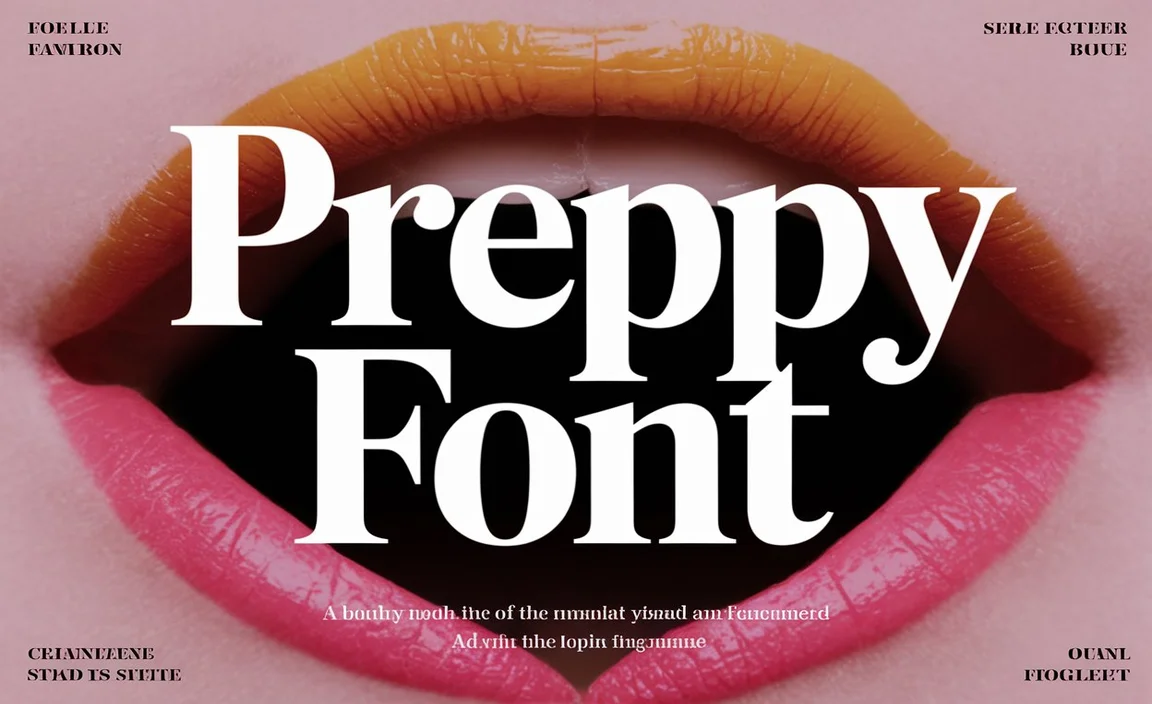
What Are Preppy Fonts?
Preppy fonts draw inspiration from classic, refined design elements, often associated with preppy fashion and lifestyle. They typically feature refined serifs, clean lines, and a balance between modern and traditional elements. The serif font style gives them a timeless appeal, while the occasional modern twist makes them perfect for contemporary designs. Preppy fonts are versatile, offering a wide range of applications from formal to casual uses.
Key Features of Preppy Fonts
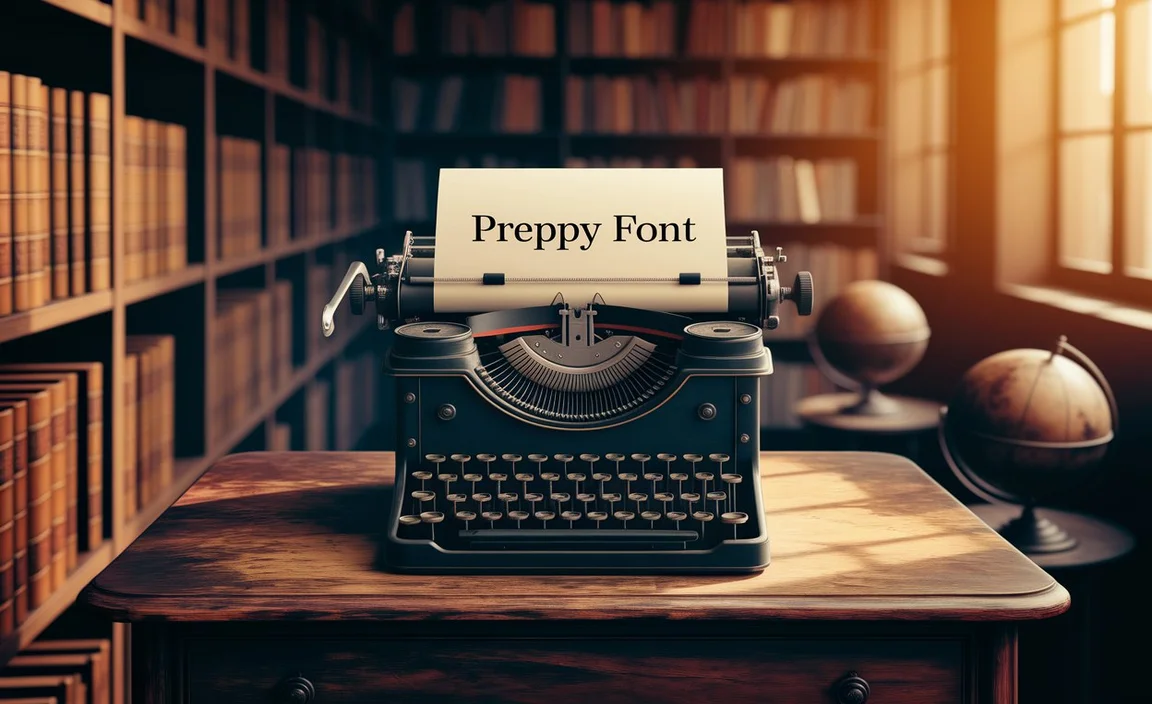
Timeless Elegance
One of the key characteristics of preppy fonts is their timeless style. The blend of classic serif fonts with a touch of modernity creates a sophisticated look that transcends trends. Whether you’re using it for branding, editorial layouts, or greeting cards, the preppy font style adds a sense of elegance and charm.
Versatility Across Projects
Preppy fonts are incredibly versatile, making them suitable for a variety of design projects. Whether you’re working on packaging, social media graphics, or a creative project, these fonts adapt to different needs. Their flexibility allows for use in both personal use and commercial use designs.
Clean Lines and Sophistication
The clean lines of preppy fonts give them a crisp and polished appearance. Whether you’re working with a script font or a sans version, the overall look is refined and sophisticated. These fonts often feature special characters and alternates, adding a personalized touch to each design.
Preppy Design and Branding
Preppy fonts are particularly effective in branding efforts. Their clean and elegant style helps create a memorable logo or design template. When paired with a color palette featuring pastel colors or neutral tones, a preppy design instantly communicates a sense of class and style. These fonts are perfect for brands looking to convey a sense of sophistication and charm.
Modern Twist with Retro Influence
While preppy fonts often carry a retro vibe, they also incorporate elements of modern design. This combination allows for a modern twist on a classic look, making them appealing for a wide range of audiences. The balance of old and new makes these fonts perfect for projects that need a blend of tradition and fresh creativity.
Add Class to Your Design with Preppy Fonts
- Branding & Logos: Preppy fonts are commonly used in logo design to create clean, elegant visuals. Their refined serifs and timeless elegance help set the tone for businesses that want to appear sophisticated and stylish.
- Social Media Graphics: The preppy style is highly adaptable to social media graphics. Whether it’s a bold font for an attention-grabbing post or a script font for a more personal message, preppy fonts work well in social media graphics.
- Greeting Cards & Invitations: A preppy font can add a charming touch to greeting cards or invitations, making them stand out while maintaining an air of elegance. The serif font style is often paired with pastel colors for a refined, yet approachable, look.
- Editorial Layouts: In editorial design, preppy fonts are often used for magazine spreads, websites, and other content that requires clean typography. Their timeless elegance works well in print and digital formats, ensuring that your design remains relevant for years.
Why Choose Preppy Fonts?
Style and Sophistication:
Preppy fonts exude an air of sophistication, making them perfect for high-end brands, luxury products, or any project that requires a touch of class. Whether you’re creating a logo, designing a website, or preparing a marketing campaign, choosing the right font is essential for conveying the right tone.
Endless Combinations:
The versatility of preppy fonts means you can combine them with various design elements, such as symbols, special characters, and even handwritten fonts. The typeface can adapt to different design aesthetics, offering endless possibilities for creative projects.
Charming and Refined:
From their refined serifs to their clean lines, preppy fonts add a certain charm and elegance to any design. Whether you are designing a minimalist logo or a colorful website, these fonts provide a balance of classic beauty and modern simplicity.
Incorporating preppy fonts into your designs is an easy way to add sophistication, elegance, and charm. These fonts offer a timeless style that works across a range of design projects, from branding to editorial layouts to social media graphics. With their refined serifs, clean lines, and modern twist, preppy fonts are a versatile and creative tool that can elevate your work and help you stand out.